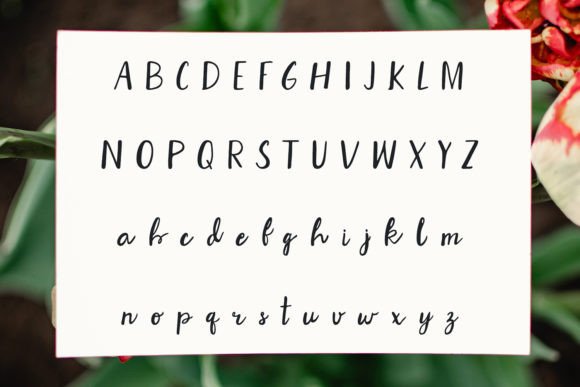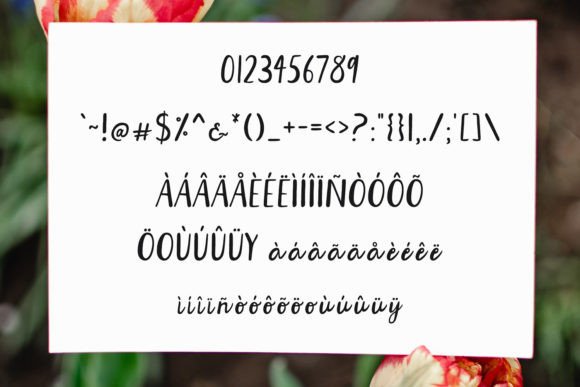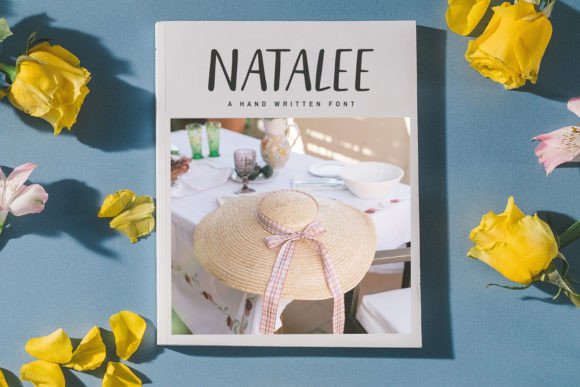
Introduction to Natalee Font
Natalee is a beautiful, strong, and cute handwritten font that will elevate a wide range of design projects to the highest level.
It will be perfect for packaging, presentations, logo, headlines, lettering, posters, branding, quotes, titles, magazine headings, web layouts, advertising, invitations, packaging design, books, and nearly any creative design .
Key Features of Natalee Font